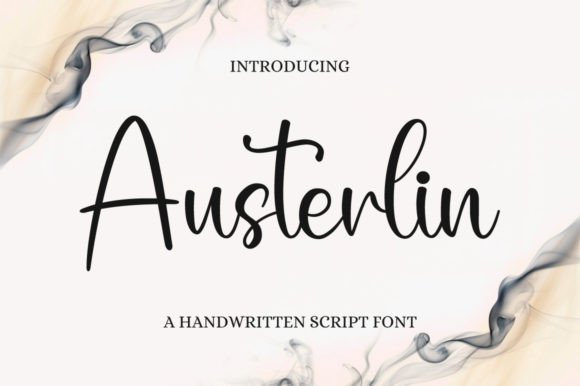
The Austerlin Font: A Timeless Choice for Creative Projects
I’ll never forget the struggle I faced while working on a branding project for a small business. My client wanted a font that was both elegant and approachable, but I was having a hard time finding the perfect fit. That’s when I stumbled upon the Austerlin font, and it instantly became my go-to choice. In this article, I’ll share my experience with Austerlin, its features, and how to make the most of it in various design platforms.
A Personal Review of Austerlin
What I Love About Austerlin ✨
• ✅ Timeless and versatile: Austerlin is a beautifully crafted handwritten font that works well for a wide range of projects, from logos and branding to quotes and social media graphics.
• ✅ Elegant and approachable: The font strikes the perfect balance between sophistication and friendliness, making it suitable for various industries and audiences.
• ✅ Highly legible: Austerlin’s clear and consistent letterforms ensure that your text remains easy to read, even at smaller font sizes.
• ⚠️ Limited availability of stylistic alternates: While Austerlin has some beautiful OpenType features, it could benefit from more stylistic alternates to further customize your text.
• ⚠️ May not work well for very long texts: As a handwritten font, Austerlin is best suited for shorter texts or headlines. For longer passages, a more traditional serif or sans-serif font might be more suitable.
The Story Behind Austerlin
Austerlin was designed with the intention of creating a timeless, handwritten font that captures the essence of classic elegance. The designer aimed to craft a font that would be both versatile and beautiful, suitable for a wide range of creative projects. Although the designer’s background is shrouded in mystery, their work on Austerlin has left a lasting impact on the design community.
What makes Austerlin suitable for branding? Austerlin’s unique blend of elegance and approachability makes it an excellent choice for branding projects. Its timeless feel ensures that your brand’s visual identity will remain relevant for years to come.
Is Austerlin a difficult font to read? No, Austerlin is designed to be highly legible. Its clear letterforms and consistent spacing ensure that your text remains easy to read, even at smaller font sizes.
Can I use Austerlin for body text? While Austerlin is a beautiful font, it’s best suited for shorter texts or headlines. For longer passages, consider using a more traditional serif or sans-serif font for improved readability.